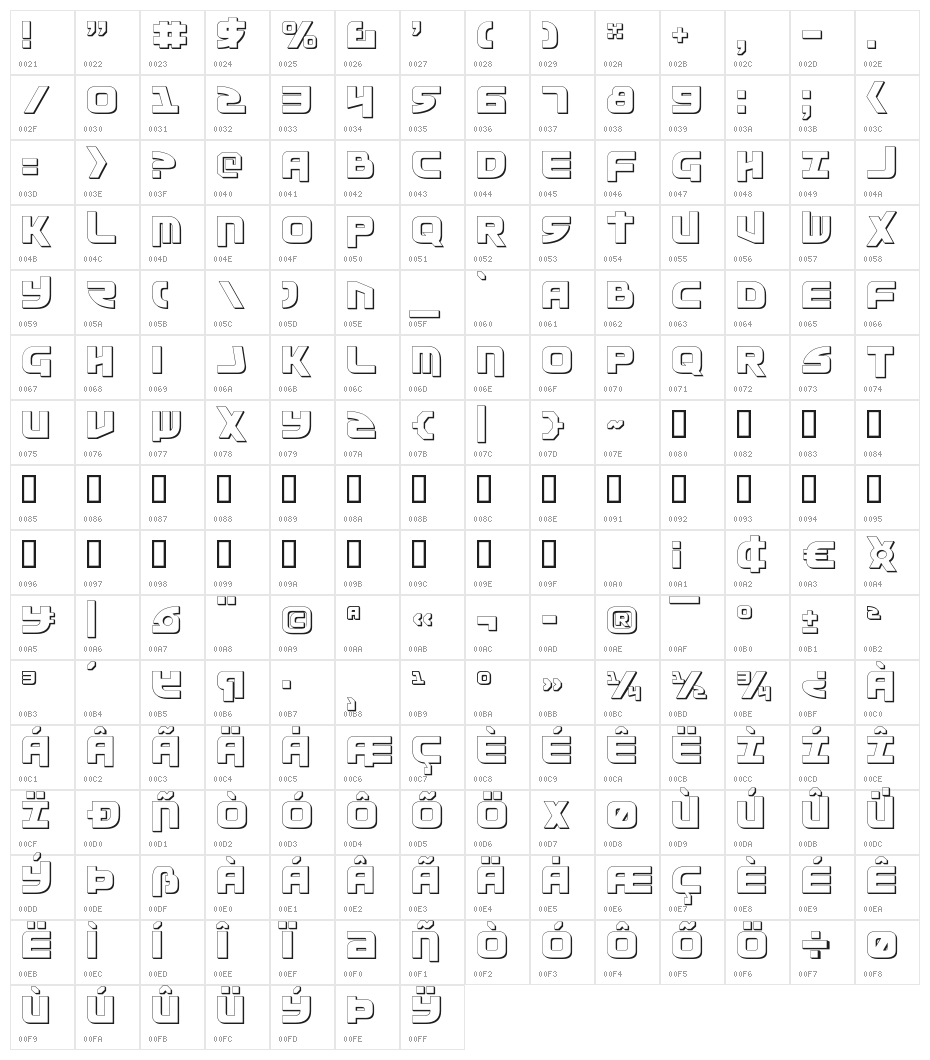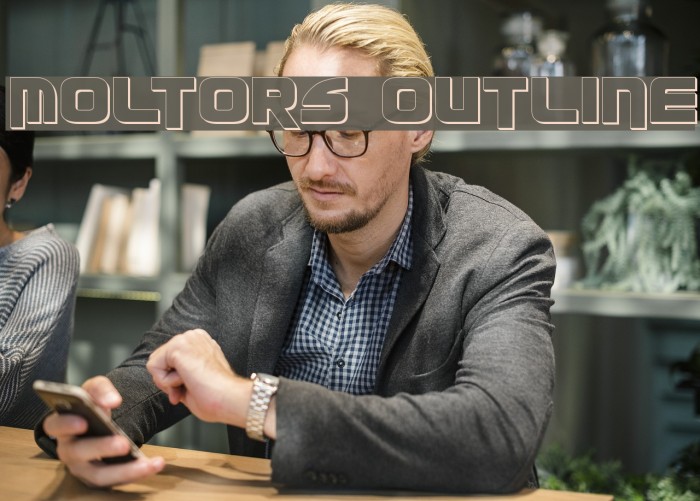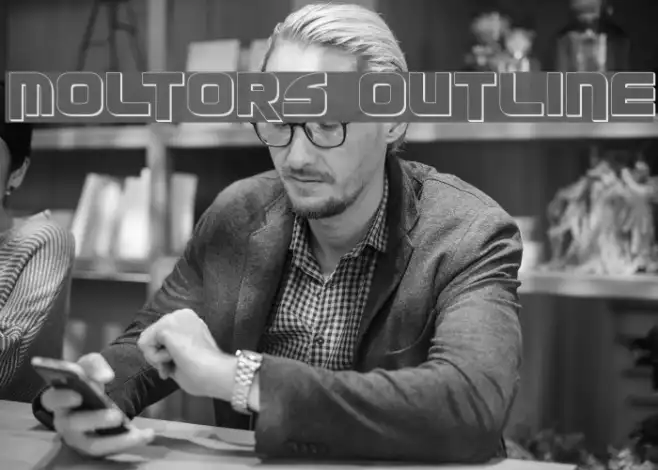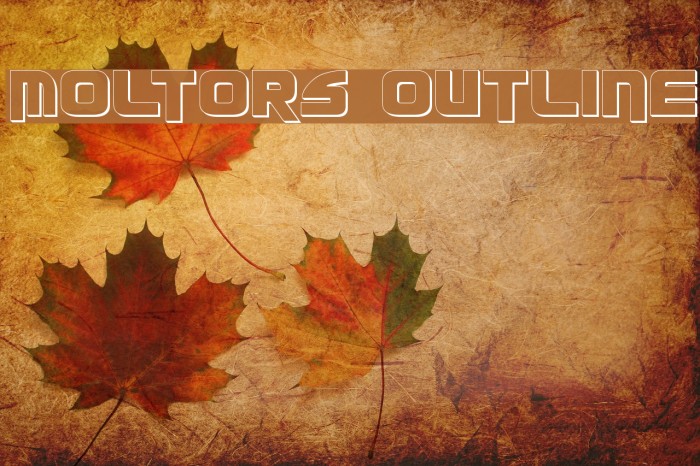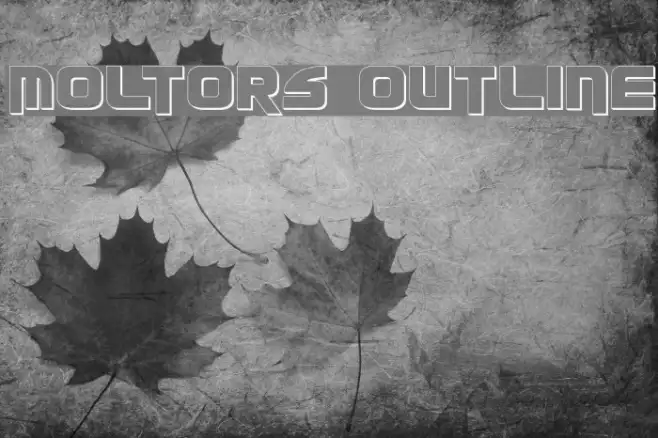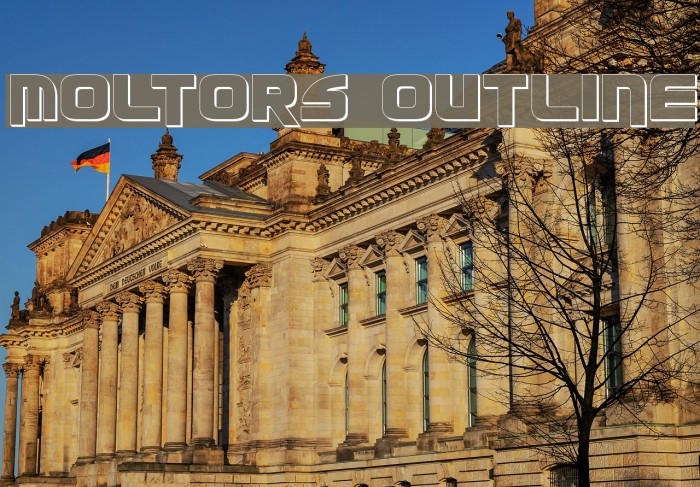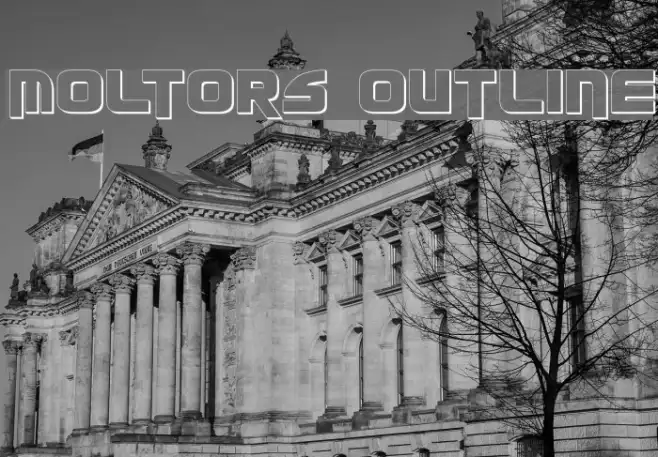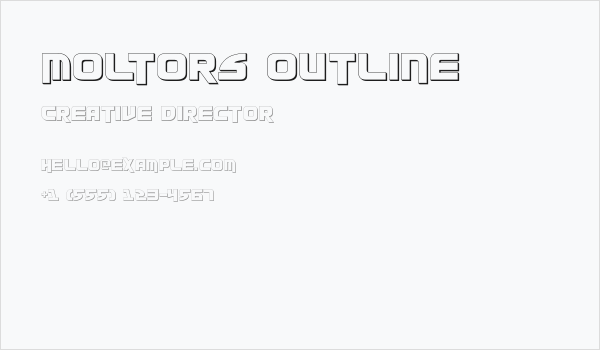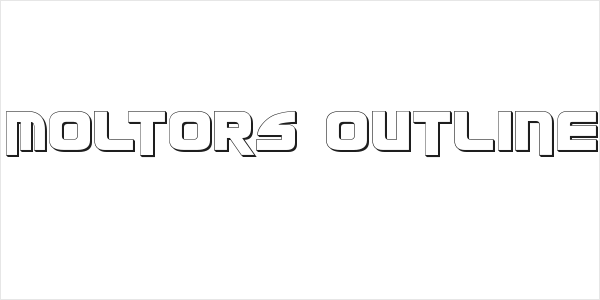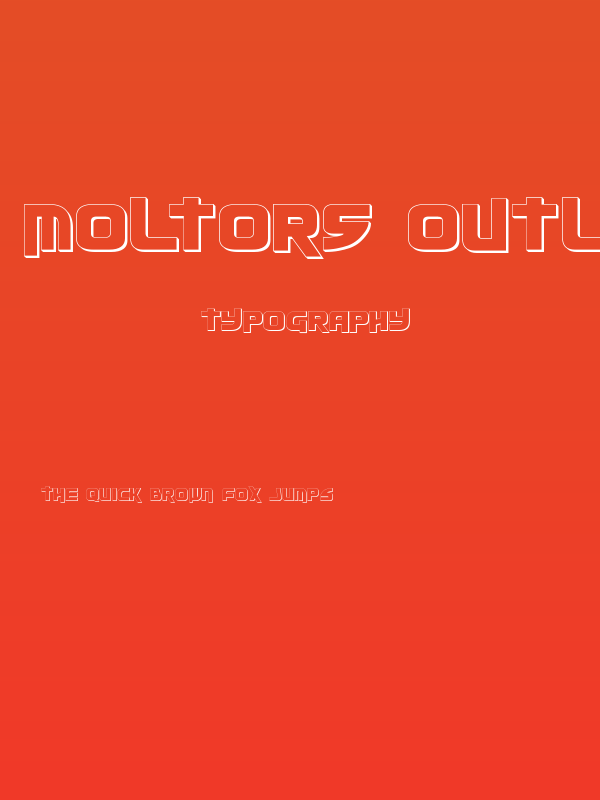
Moltors Outline Font
Moltors Outline Description
This font features a bold, geometric outline style that emphasizes modernity and strength. The characters are constructed with thick, uniform lines that create a hollow effect, giving it a distinct and eye-catching appearance. The angular design of the letters, combined with the consistent stroke width, provides a futuristic and industrial feel. The uppercase and lowercase letters maintain a cohesive look, while the numerals and special characters complement the overall aesthetic. This font is ideal for projects that require a strong visual impact and a contemporary edge.
| Proposed Projects | Ideal for branding, posters, headlines, and any design requiring a strong visual impact. |